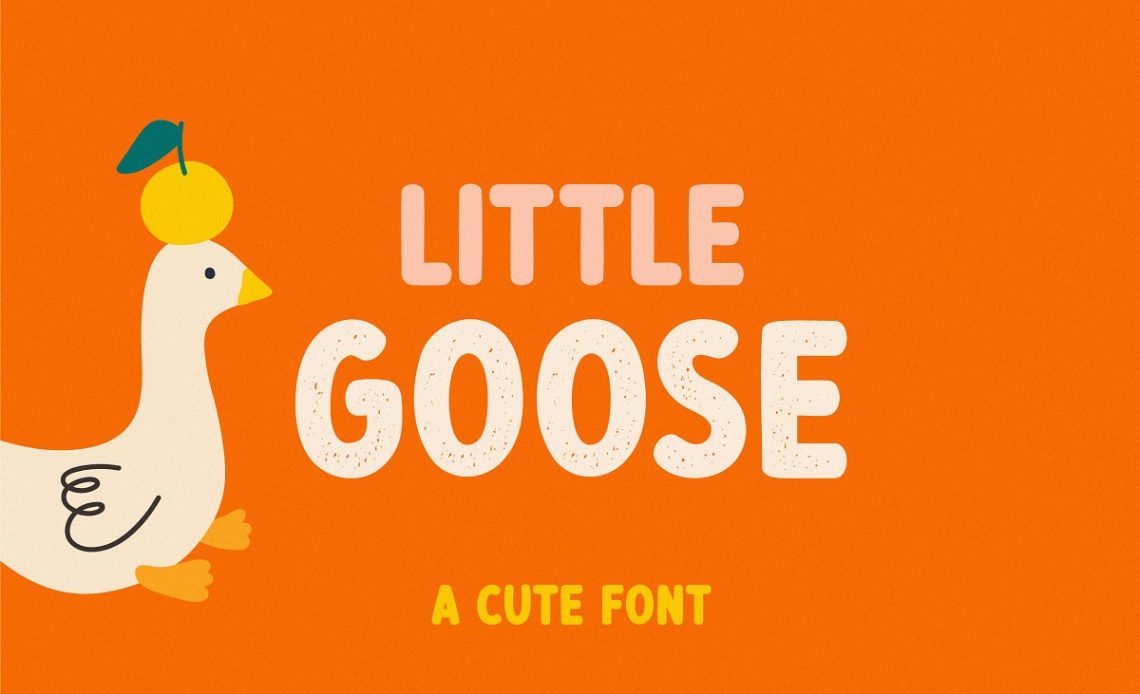
Introducing the perfect font for your kid's designs - Little Goose! This cute font is created by the talented Yulia Volkova and is part of our fonts collection. If you're looking for the best fonts for kids designs, Little Goose is definitely one of them!
Little Goose is not only cute, but also versatile and perfect for a wide range of design purposes. Whether you want to create logos, quotes, invitations, greeting cards, journals, posters, clothing, or anything else, Little Goose can help you make it look great and fun!
With this font, you will get not only LittleGoose.otf but also LittleGoose-Textured.otf, which gives you even more creative options. Plus, you'll also receive 92 graphic elements in AI, EPS, and PNG formats with transparent backgrounds. These elements will help you take your designs to the next level and make them truly unique.
Little Goose is not just any ordinary font. It's a font that brings joy and happiness to your designs. When you use this font, you can be sure that your designs will stand out and capture people's attention. Whether you're a professional designer or just someone who loves to create, Little Goose is the perfect choice for you.